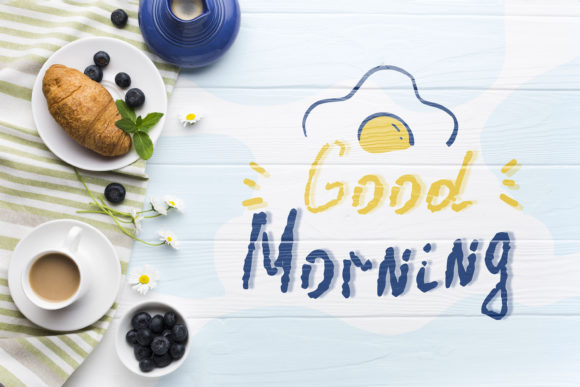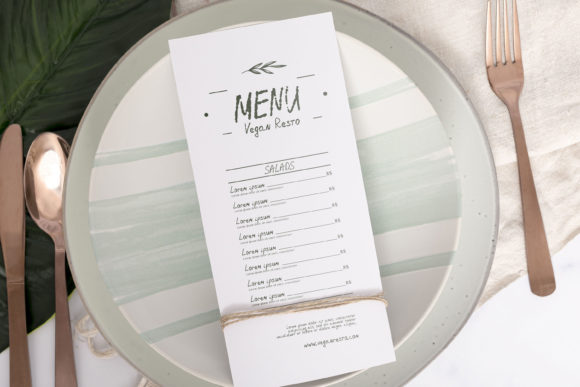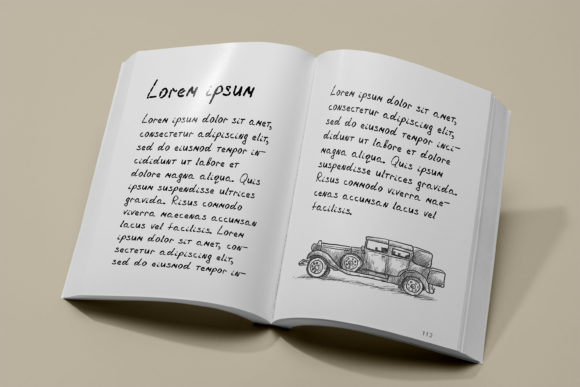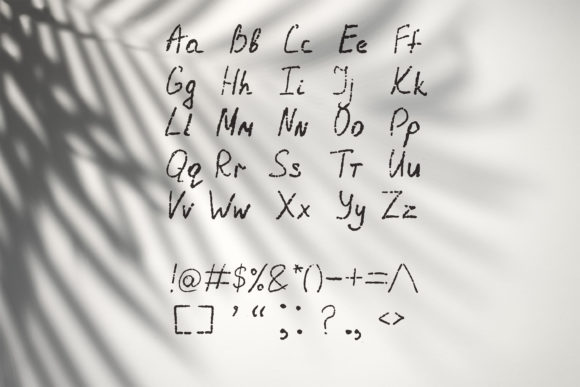
Blunt Pencil Font
About Blunt Pencil Font
Blunt Pencil is a handwritten font with a rough texture and irregular lines that replicates what handwriting would look like written with a blunt pencil. This a truly authentic and realistic font!